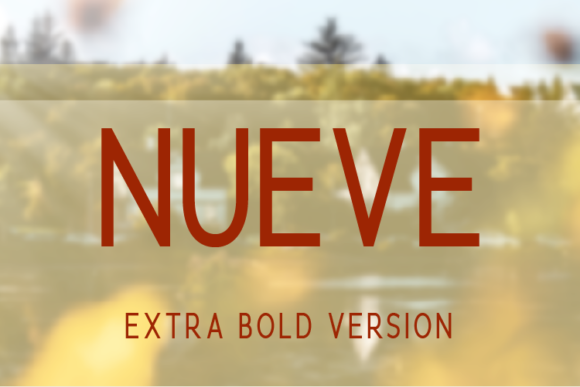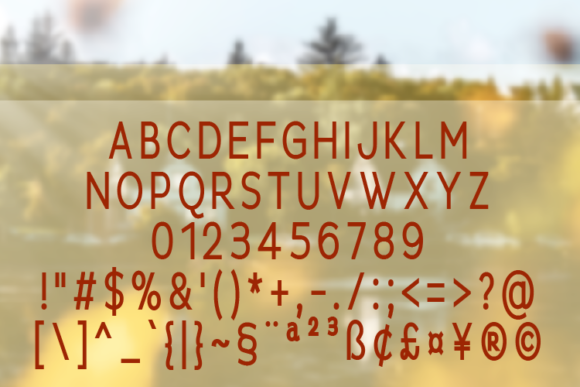
Nueve Extra Bold Font
About Nueve Extra Bold Font
Nueve is an elegant and clean sans serif font. It’s a versatile font family designed for strong, classic branding. Nueve is perfect for logos, magazines, videos, weddings, quotes, print, product packaging, website, clothing designs and much more.